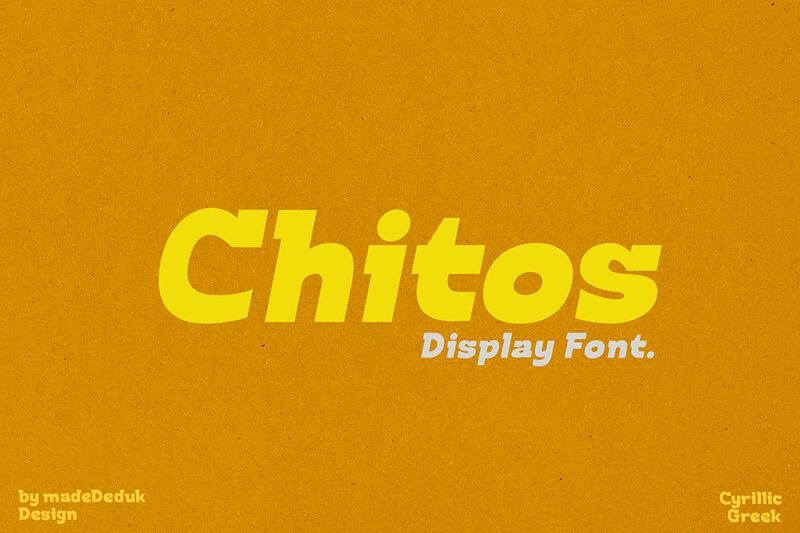
Chitos font by madeDeduk is a bold geometric font with semi-rounded edges and retro-inspired designs reminiscent of 20th-century typography. The free display font boasts a strong presence and masterfully combines geometric shapes in the head of each letterform for an impressive showcase that conveys stability and confidence.
Add Chitos to your advertisement campaigns, music concert flyers, magazine covers, movie titles, poster designs, logos, branding manufacturers, apparel designs, packages and labels.